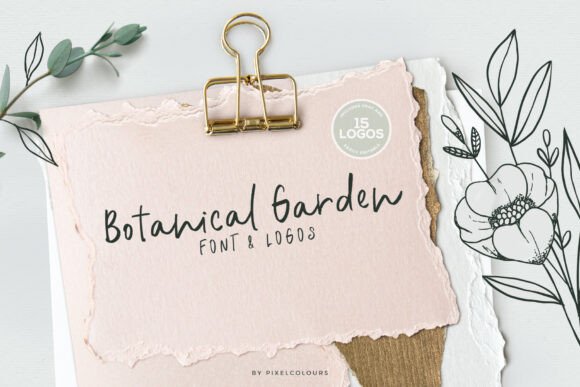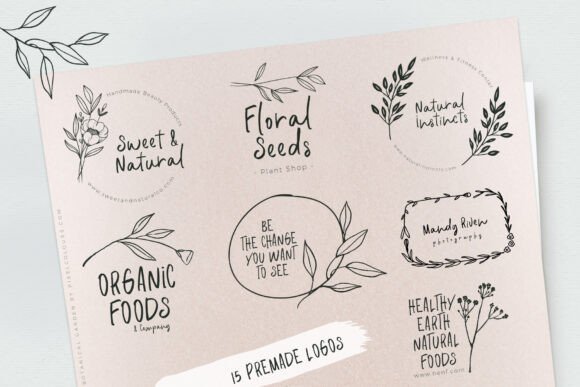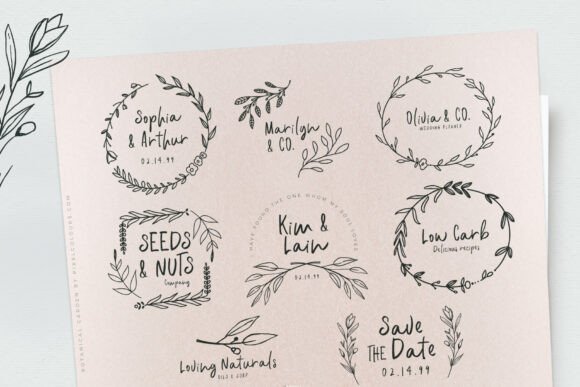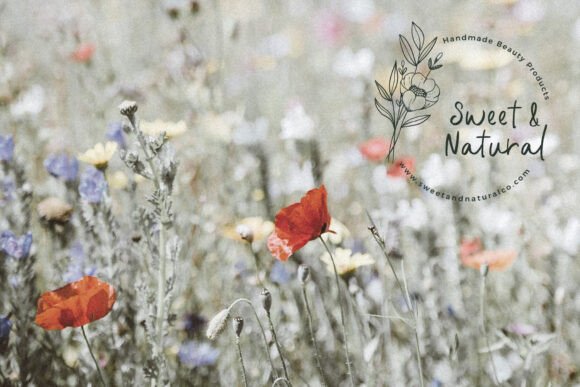
Botanical Garden  Font
About the Botanical Garden  Font
The Botanical Garden  Font is here to transform your projects with its distinctive character and style. A sweet font duo that includes a script font and a decorative font with botanical illustrations great for creating logos, quotes, and floral compositions for any project!
Logos
Includes 15 premade logo templates that you can easily edit just by adding your information.
Botanical
Extras Create your own compositions or logos from scratch with the botanical vectors.
Botanical Garden is best suited for display typography, specifically logos, short headlines, and packaging design where its decorative elements and script complement a brand’s visual identity. Its ornate style makes it less suitable for body text or UI elements requiring high readability. Long paragraphs set in this font would be difficult to read.
The font’s personality is whimsical yet elegant. It projects a sophisticated, nature-inspired aesthetic, ideal for brands focused on beauty, wellness, or artisanal products. Consider pairing it with a clean sans-serif like Lato or Open Sans for contrast and improved readability in supporting text. A simple serif like Merriweather could also provide a classic balance.
For a more playful approach, a geometric sans-serif like Montserrat could offer a modern counterpoint to the font’s organic forms. Avoid pairing it with other highly decorative or script fonts, as this would create visual overload.